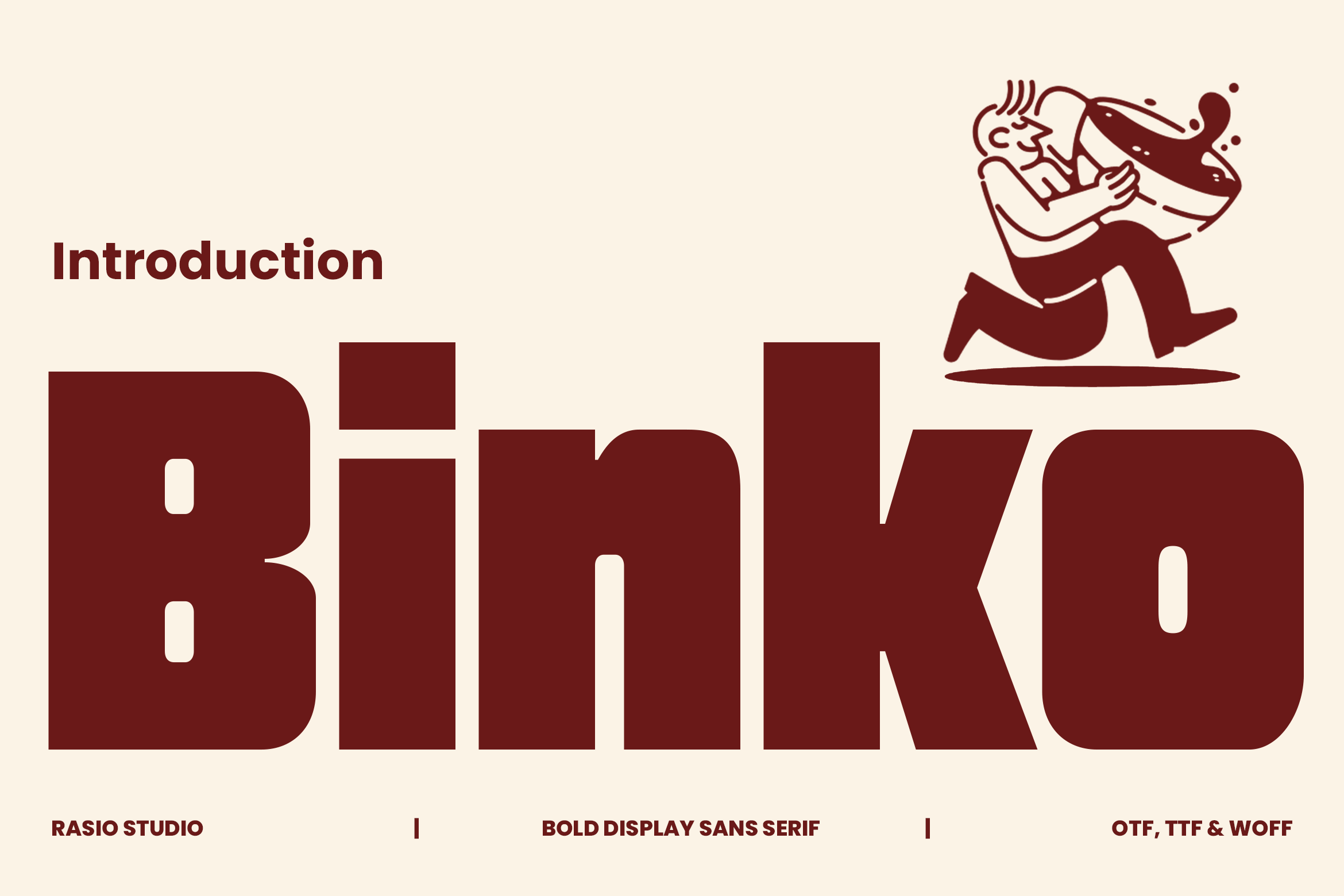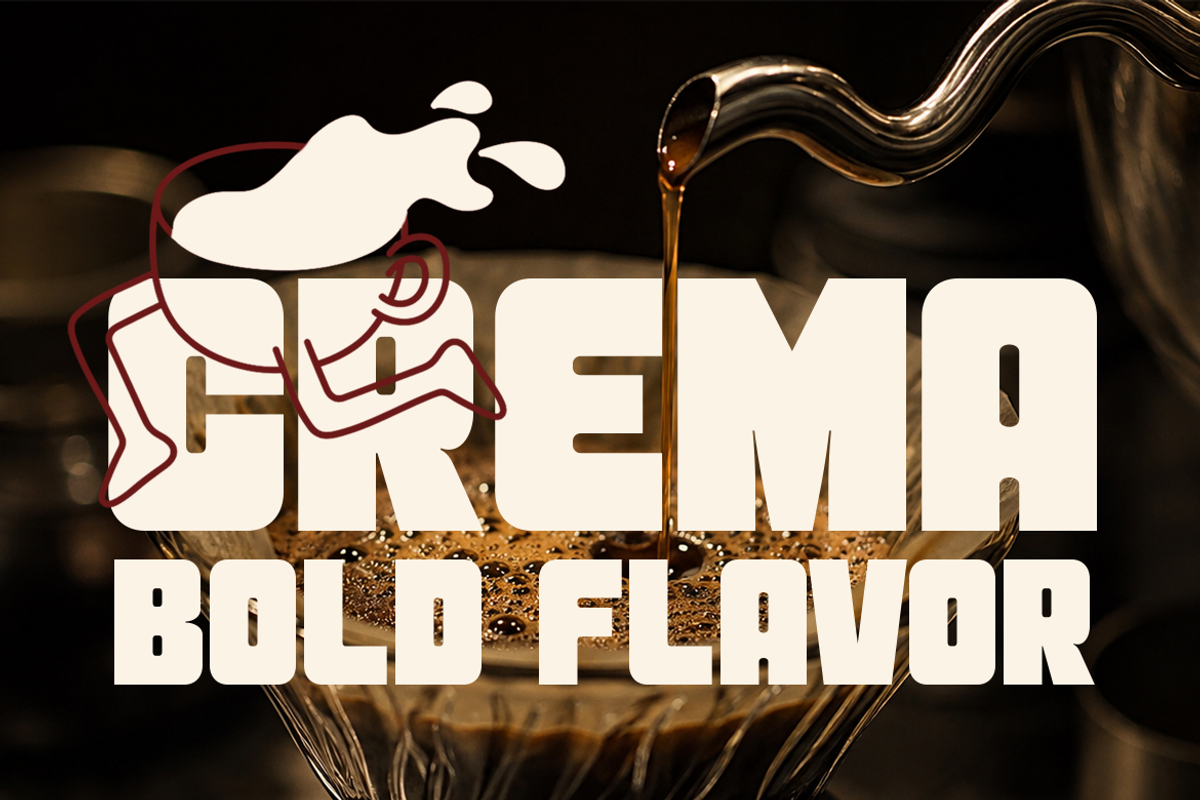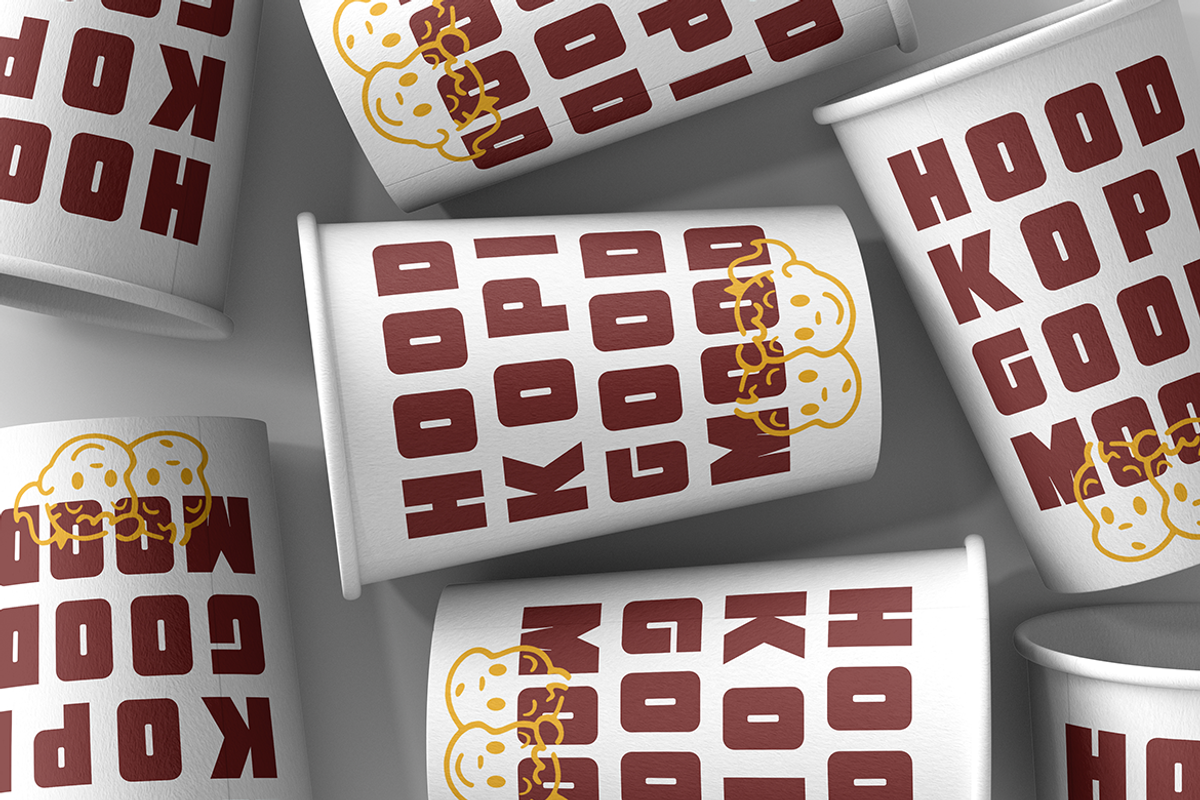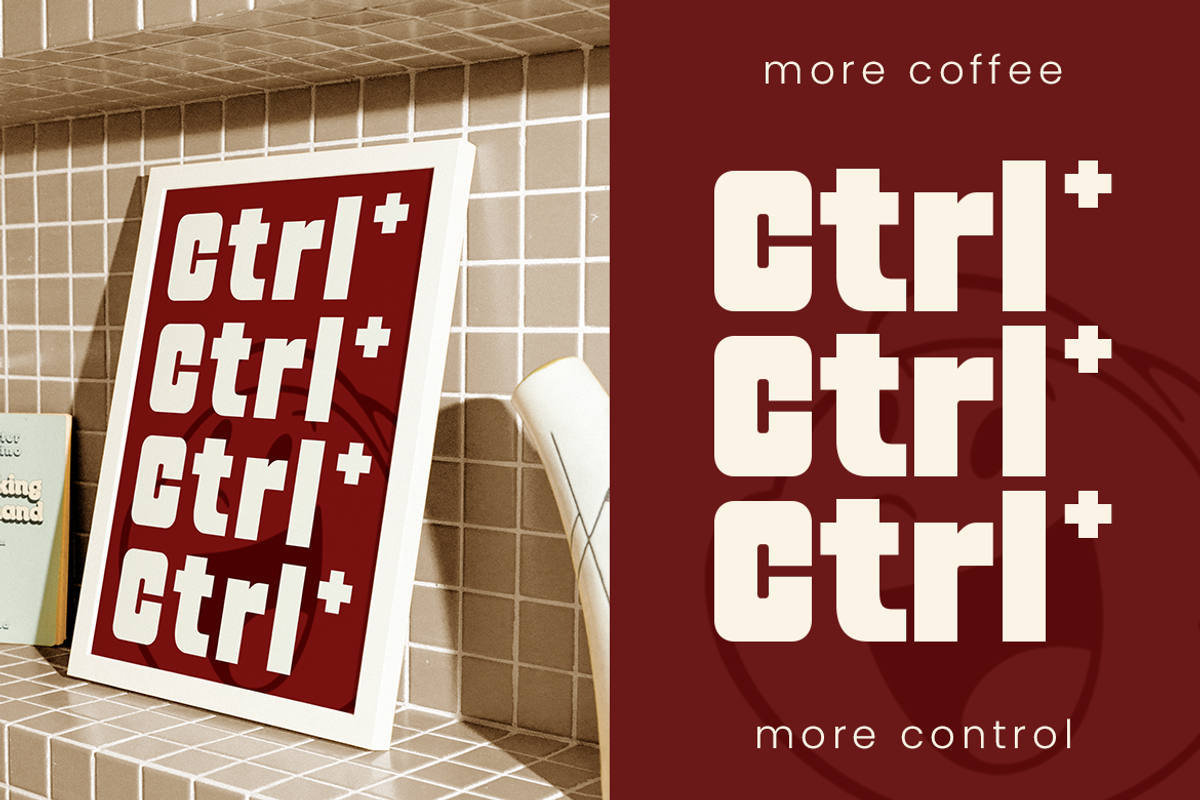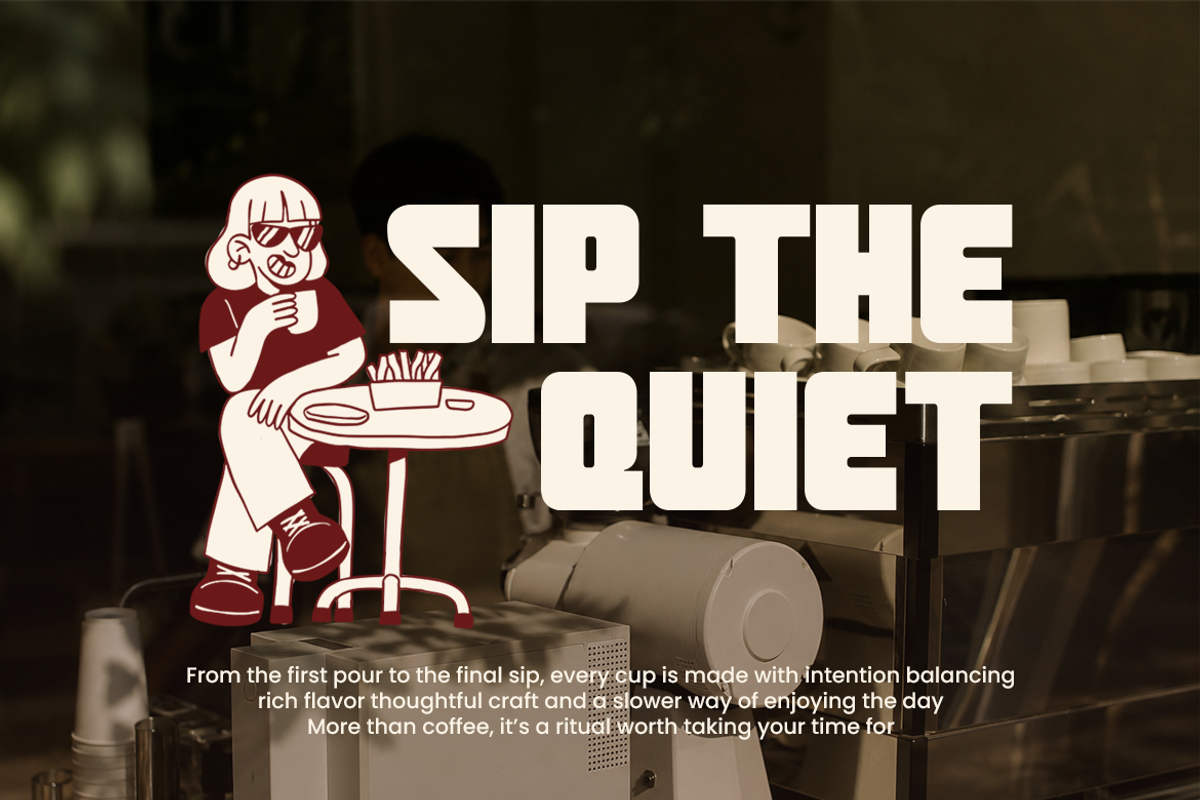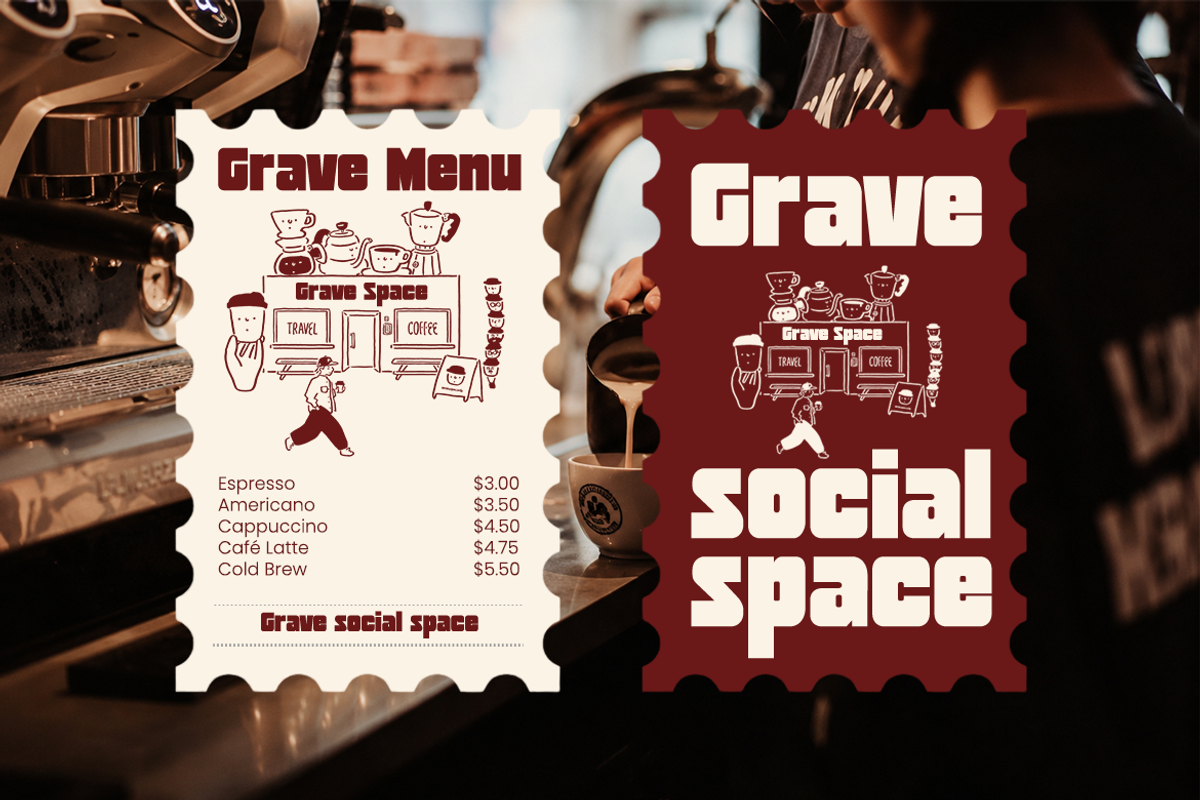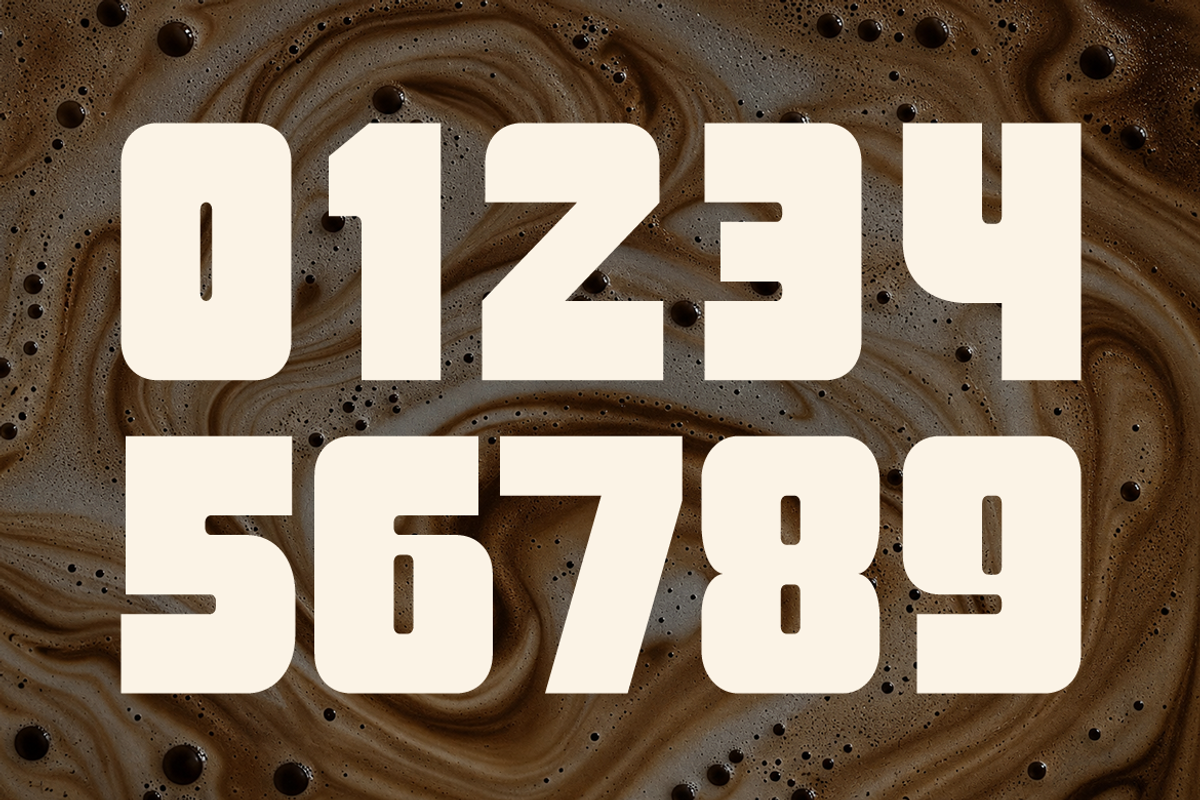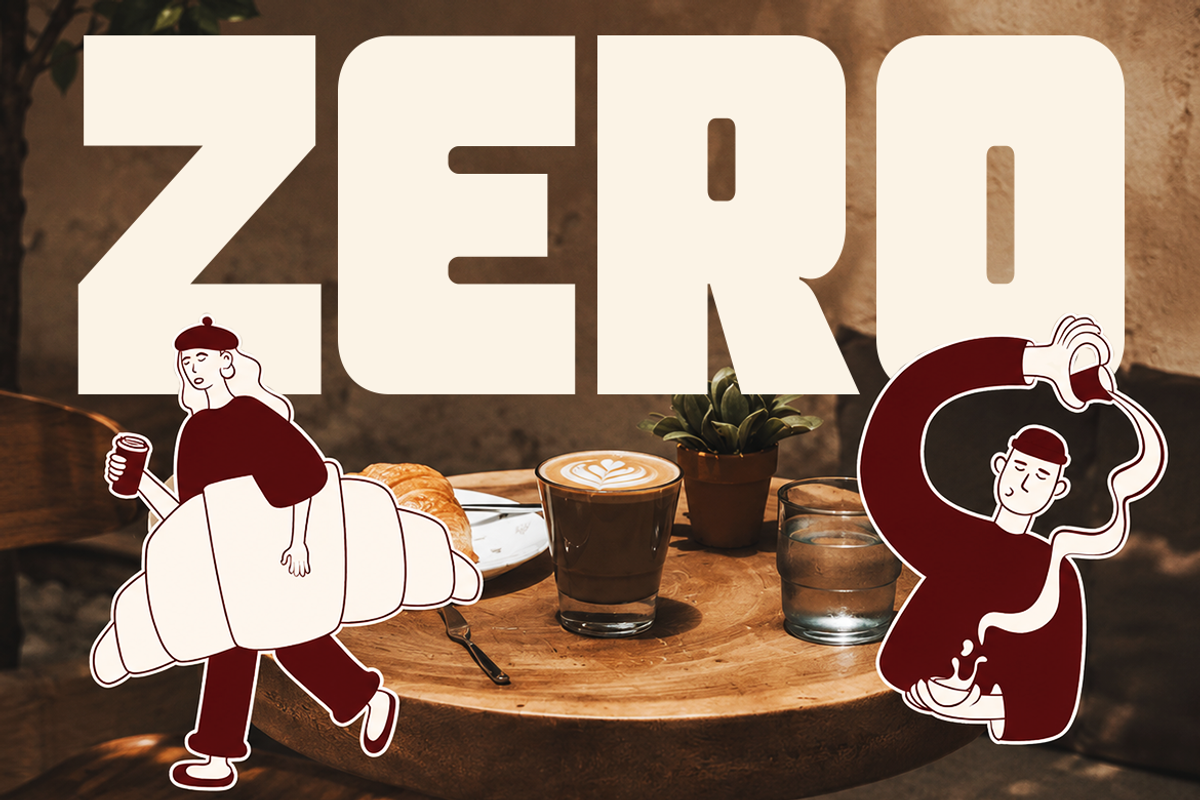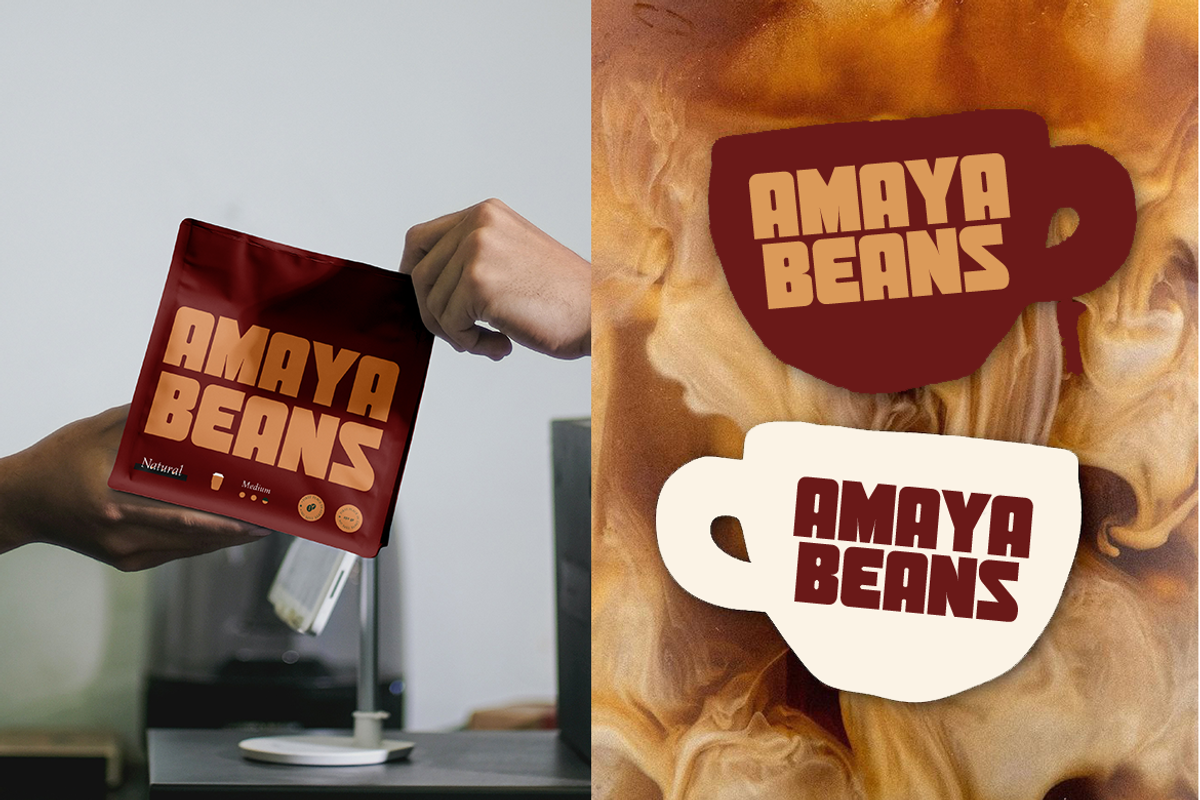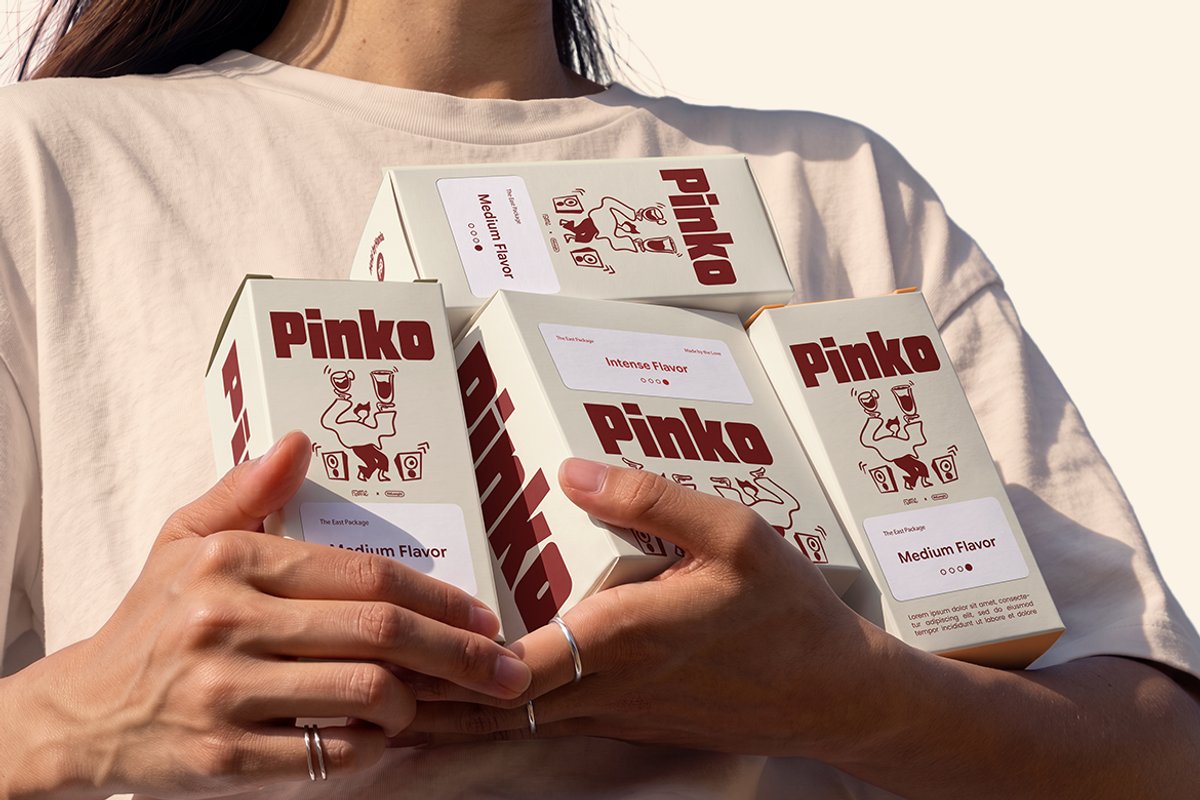
Binko Bold Display Sans Serif Font
Binko Bold Display Sans Serif Font is a bold display sans serif with a heavy, compact construction and distinctive squared geometry. Its uppercase characters use thick vertical and horizontal strokes, compact counters, and sharp cut-in details that give the alphabet a structured, almost architectural appearance. The rounded corners on selected letterforms soften the otherwise solid construction, while the unusual cuts and compact proportions create a strong graphic personality. The lowercase characters maintain the same heavy weight and geometric character, making the full typeface feel consistent across different text settings.
Designed primarily for large display typography, Binko works especially well when the lettering needs to become a dominant part of the composition. Its strong shapes are suitable for logos, posters, headlines, packaging, apparel graphics, signage, social media artwork, and bold brand campaigns. Use it at large sizes for short words, titles, and statements, or combine the uppercase and lowercase characters to create varied typographic compositions. The included punctuation also makes it practical for headline treatments and promotional layouts.
Heavy sans serif construction with thick, dominant strokes
Squared geometric forms create a structured and powerful appearance
Compact counters keep the characters visually solid and impactful
Rounded outer corners add subtle softness to the heavy letterforms
Distinctive cut-in details give individual characters a memorable identity
Logo and branding design for bold identities that need strong visual recognition
Posters and headlines where oversized typography becomes the main graphic element
Packaging and labels for products requiring a compact, attention-grabbing wordmark
Apparel and merchandise such as T-shirts, badges, stickers, and graphic prints
Social media and advertising for impactful campaign titles, promotional messages
Supports numerals, punctuation, and extensive symbol set
Binko, a bold display typeface built for strong visual impact.